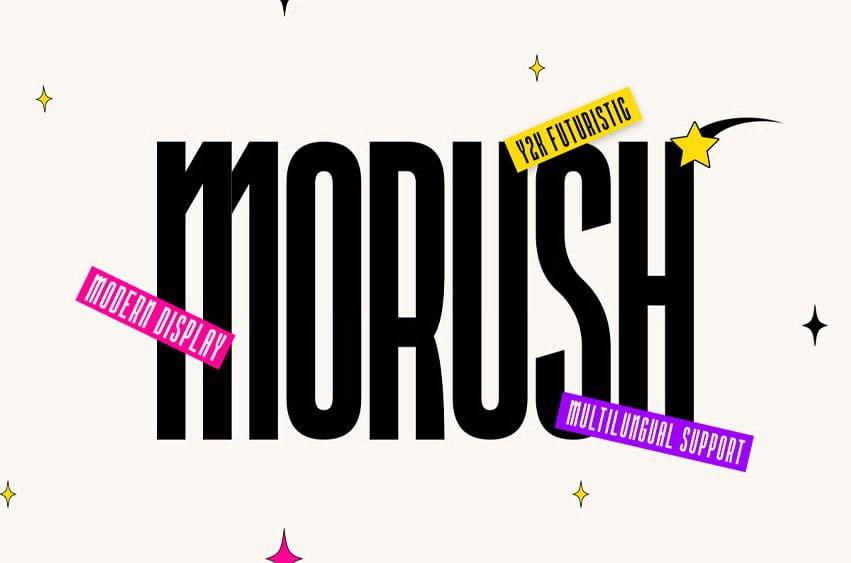
Morush Ultra Condensed Font
Morush Ultra Condensed Font is an ultra-condensed futuristic display typeface featuring tall narrow proportions, bold geometric construction, and distinctive angular details. Its dramatic vertical forms create a sleek and contemporary aesthetic that brings strong visual impact to modern typography.
• Creates powerful headlines with a striking narrow silhouette
• Perfect for futuristic and contemporary visual identities
• Delivers a clean high-impact look in limited spaces
• Works beautifully for posters, technology, and entertainment graphics
Ideal for posters, editorial headlines, album artwork, gaming graphics, technology branding, packaging, and promotional designs, this typeface delivers a bold futuristic presence with its distinctive condensed structure and modern geometric personality.